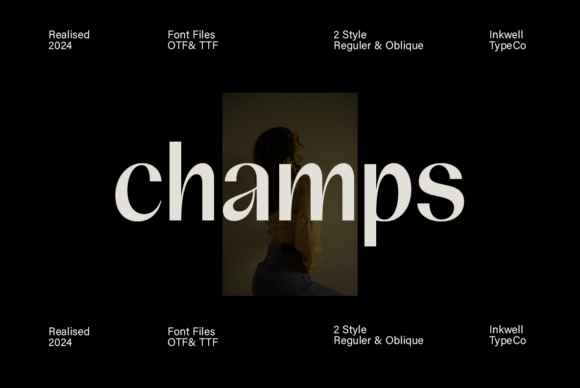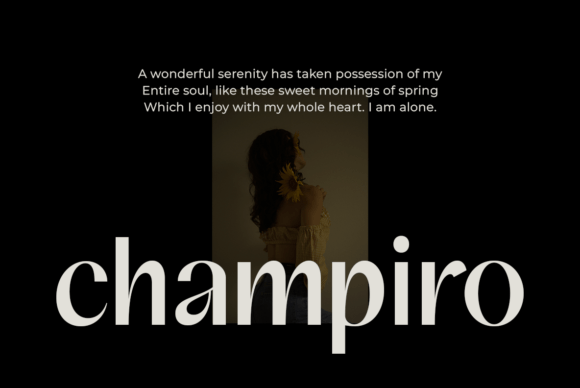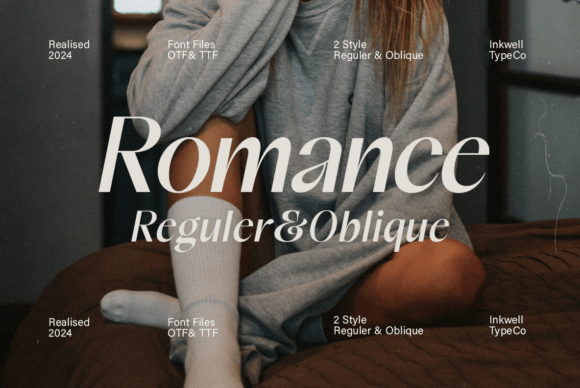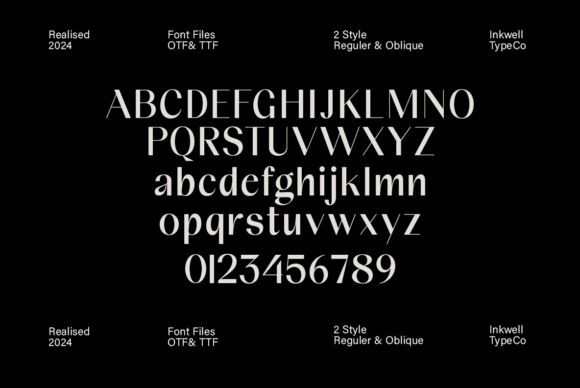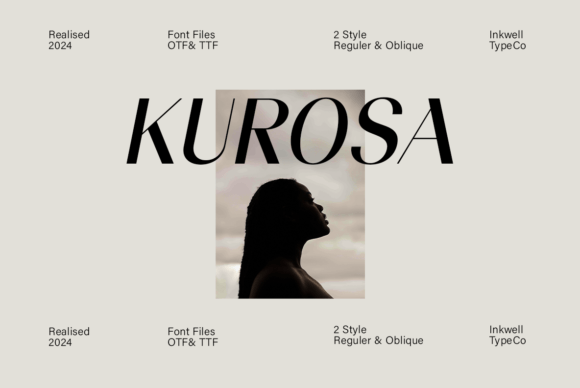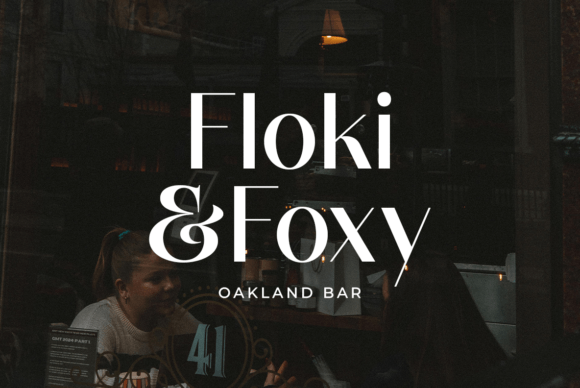
Champs Font
Champs is a distinctive sans serif font designed for impactful visuals. This font exudes a modern and sophisticated feel with its clean lines and subtle curved edges. Perfect for logos and posters, it combines readability with a unique style. Available in multiple weights, Champs provides versatility and supports multiple languages, ensuring your designs stand out with elegance and clarity.